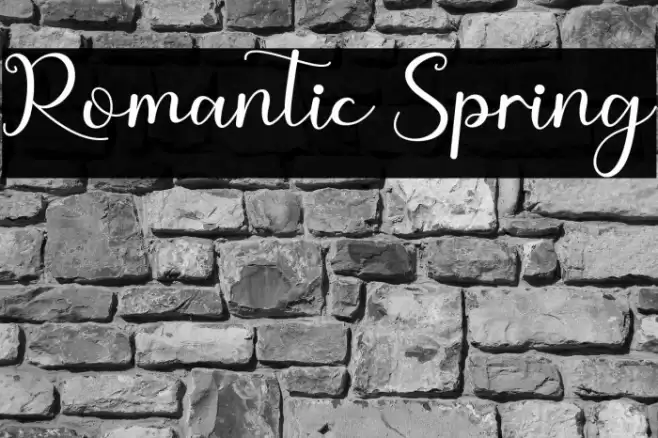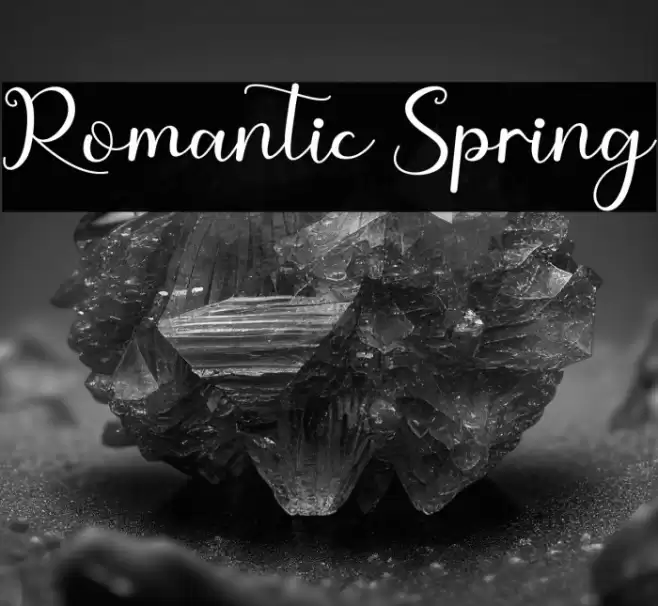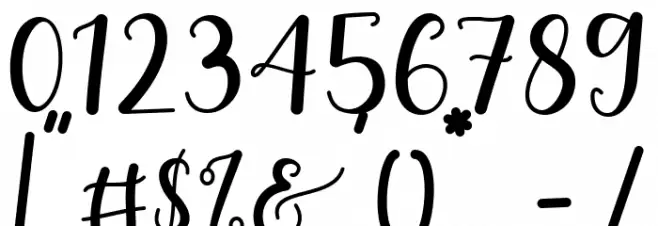
Romantic Spring Font
Romantic Spring Description
This font exudes elegance and charm with its flowing, cursive style. The letters are intricately designed with delicate loops and swirls, giving it a romantic and whimsical feel. The uppercase letters stand tall with graceful curves, while the lowercase letters maintain a consistent flow, enhancing readability. Numbers and special characters are crafted with the same attention to detail, ensuring a cohesive look across all elements. The overall appearance is both sophisticated and playful, making it ideal for projects that require a touch of elegance and creativity.
An elegant, cursive font with romantic loops and swirls from Regular fonts.
- Proposed Projects: Wedding invitations, greeting cards, branding for luxury products, and romantic-themed designs.
- Overall Style: Romantic, Whimsical
- Use Case: Invitations, Branding, Decorative text